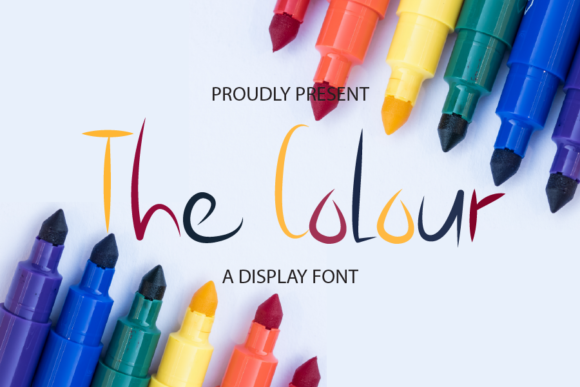
**Introducing The Colour Font: A Creative Handwriting Font for Instagram!**
Are you ready to elevate your Instagram game with a font that's as charming as it is enchanting? Meet The Colour Font, an exquisite script typeface that will add a touch of whimsy to all your social media posts.
Crafted by the talented merge354, The Colour Font is a masterpiece designed to capture hearts and turn heads. Its playful curves and adorable flourishes will instantly transform your captions, stories, and highlights into eye-catching works of art.
But The Colour Font isn't just about aesthetics. It's also incredibly versatile, ensuring that it complements any style or theme you have in mind. Whether you're creating captivating quotes, sharing your latest adventures, or simply adding a touch of personality to your profile, The Colour Font will effortlessly elevate your content.
**Embrace the joy of The Colour Font and transform your Instagram into a visual wonderland!**